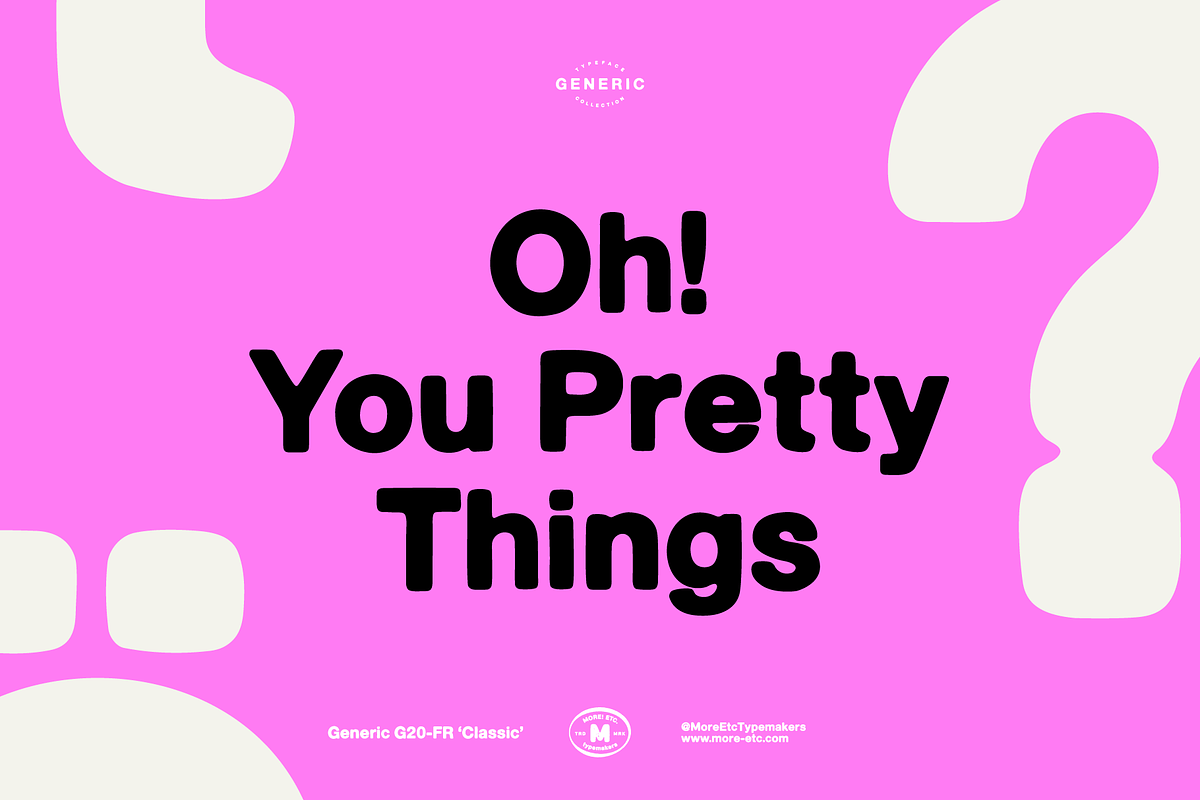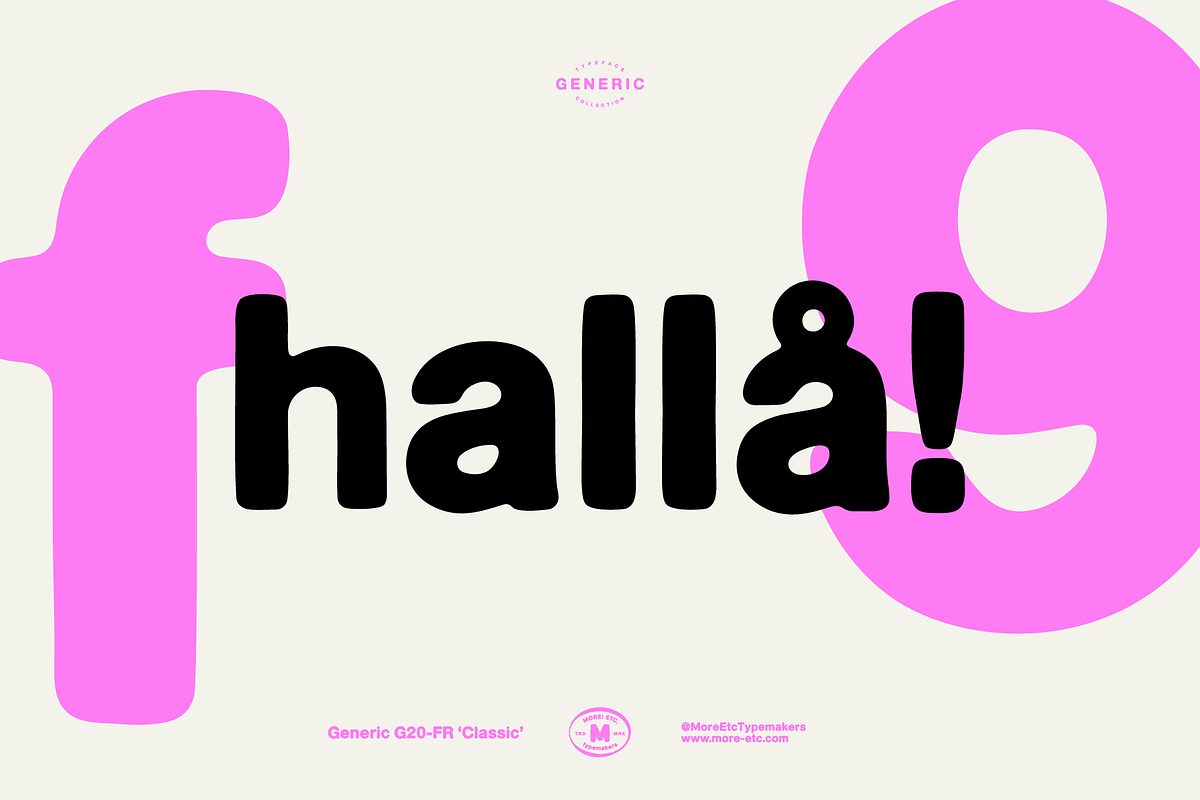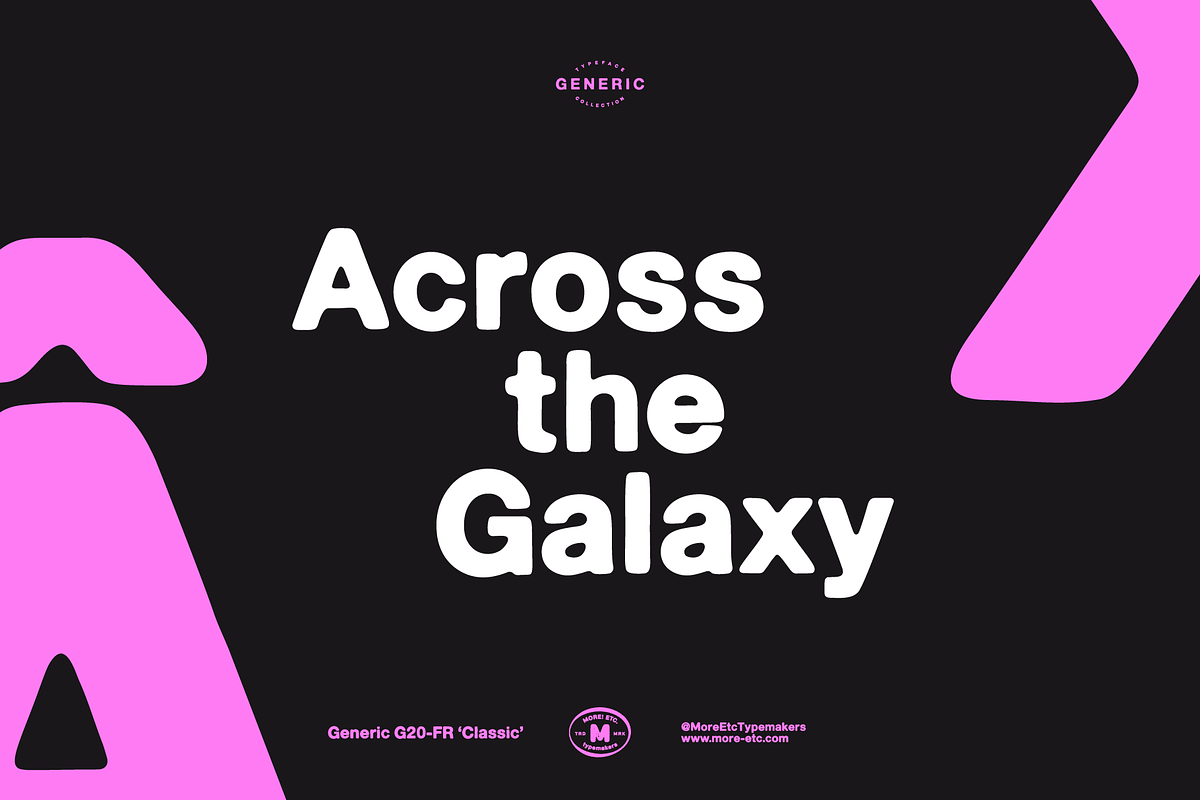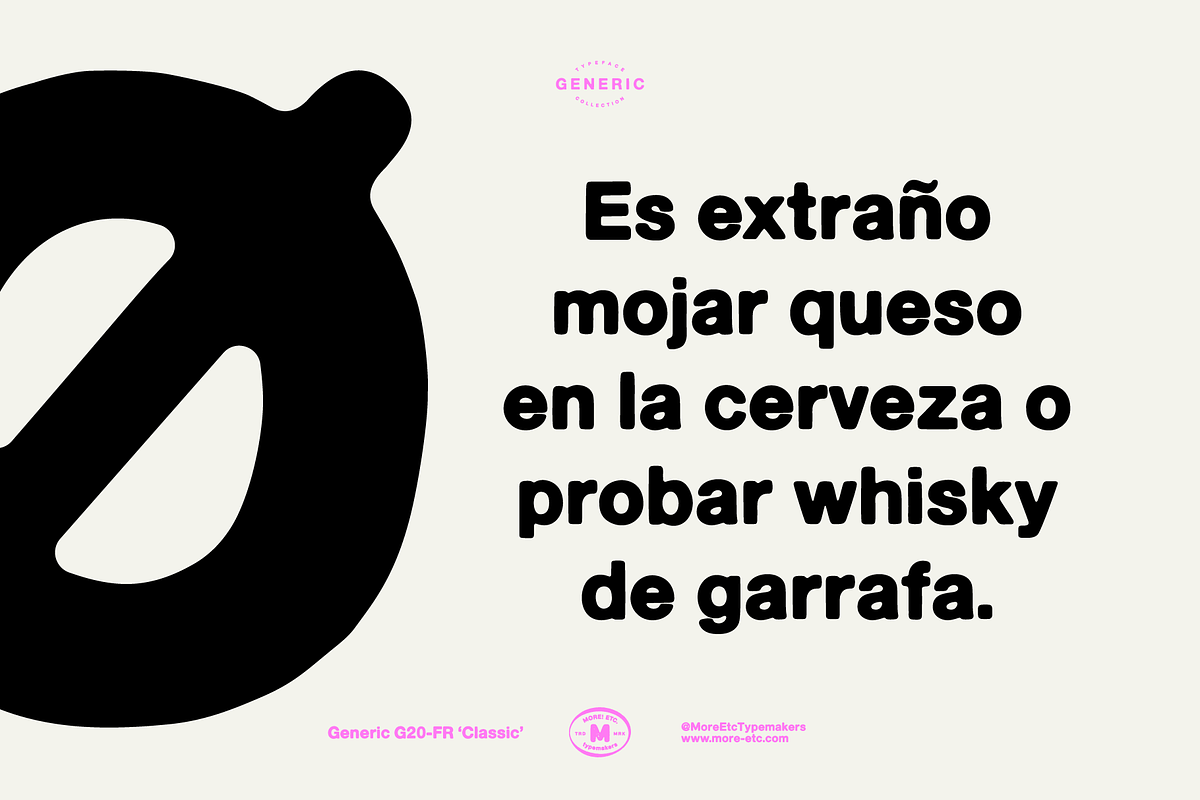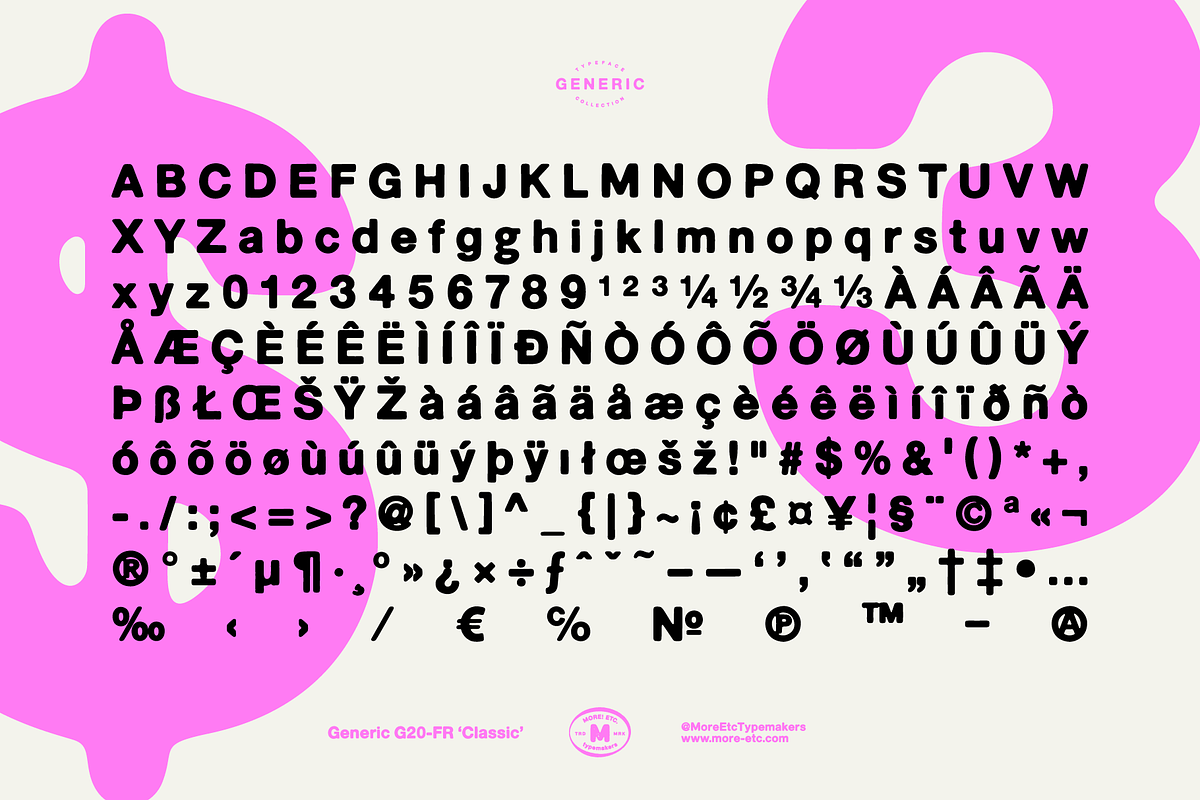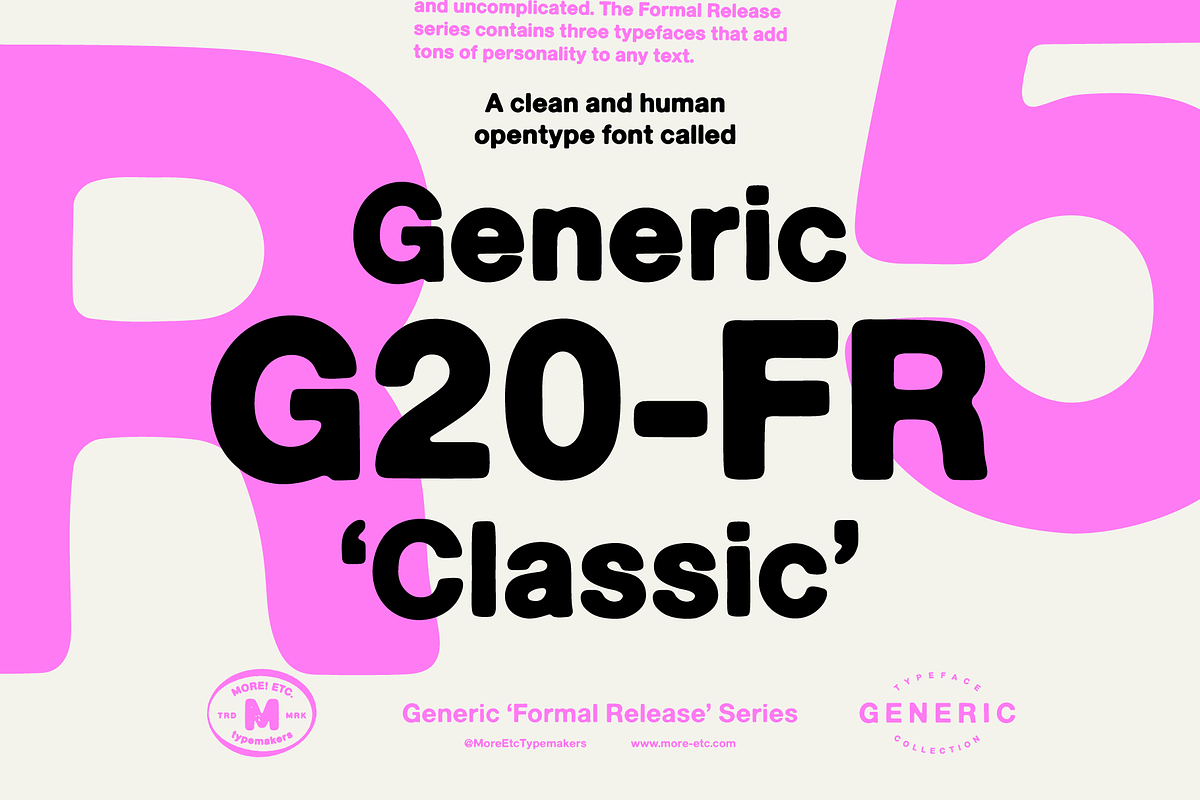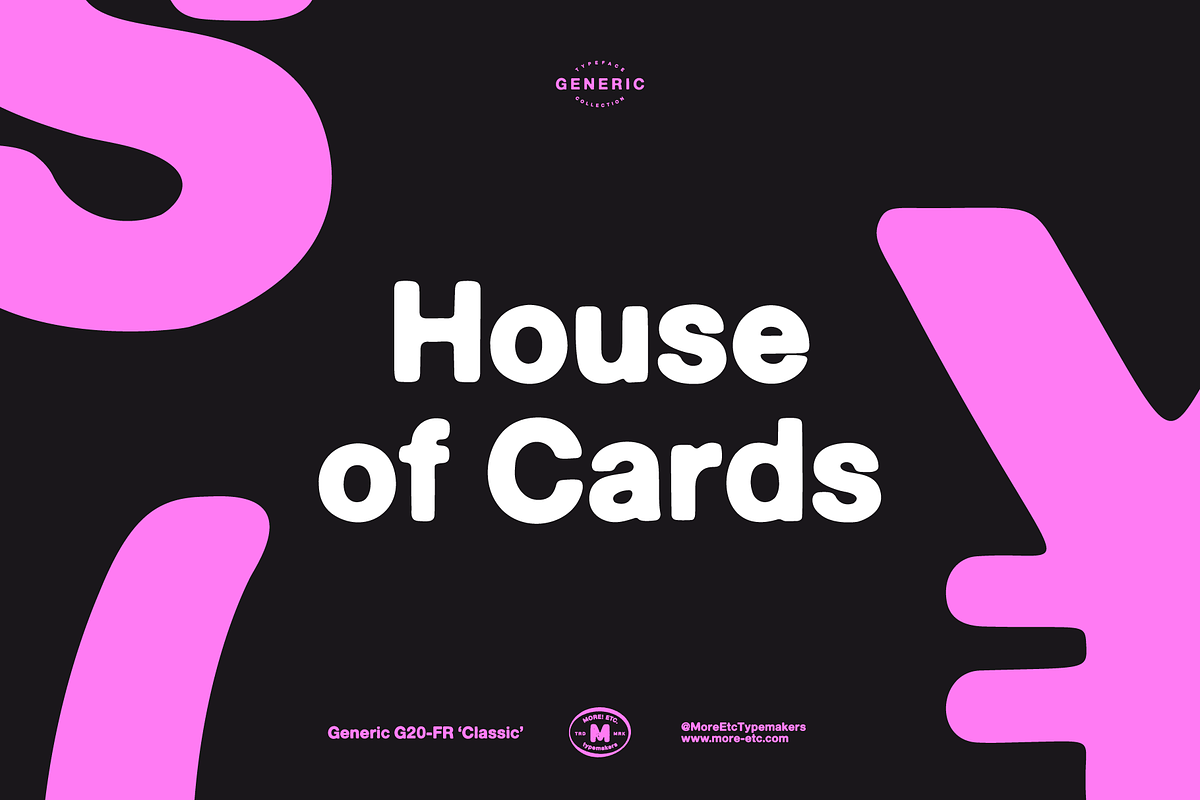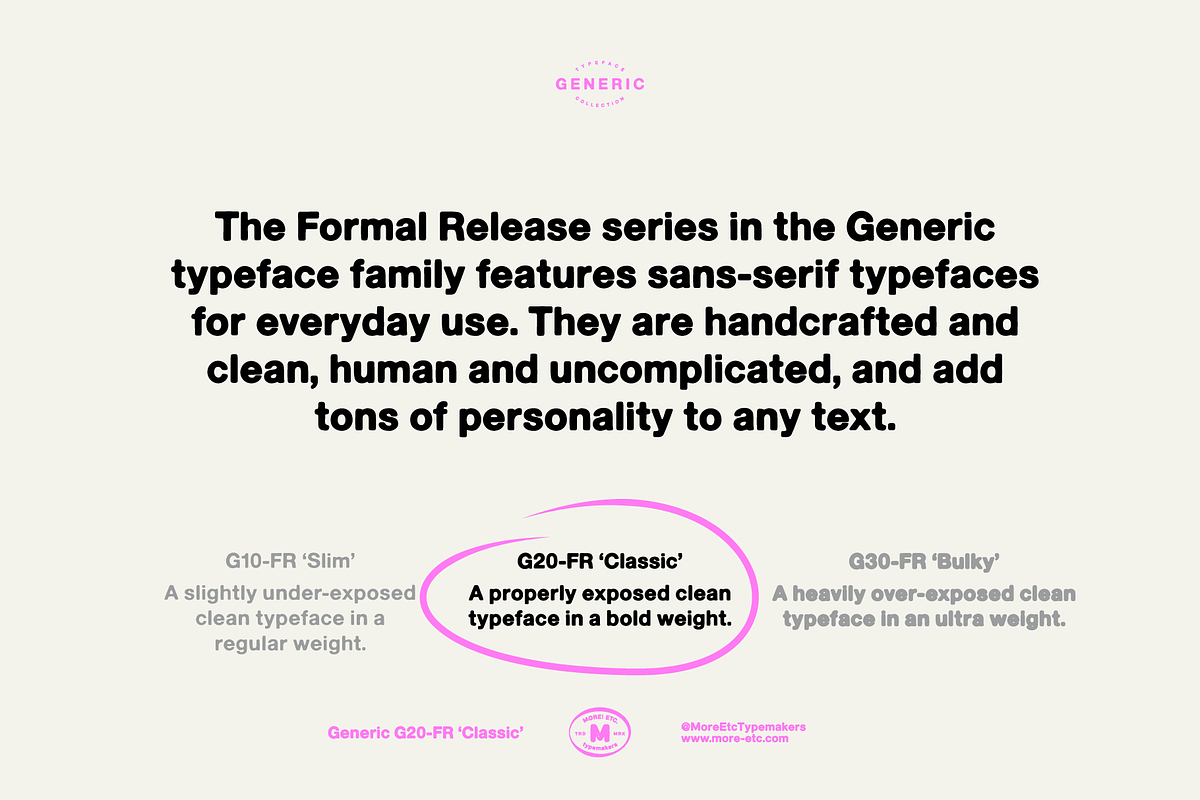
Generic G20-FR 'Classic'
Say hello to the Generic G20-FR 'Classic' typeface – a properly exposed clean typeface in a bold weight. A display font full of spirit, personality and distinction.
The typeface is handcrafted and clean, human and uncomplicated.
Font summary:
- Clean and human appeal with tons of personality
- Display font, but works in longer text settings as well
- 228 glyphs
- 1 alternate character
Companion shadow font
The Generic Typeface Collection is a series of sans-serif typefaces inspired by the craftsmanship of graphic design, typesetting, and printing in the analogue era – before Adobe, Macintosh computers and desktop publishing – when dinosaurs ruled the earth. This is an attempt to incorporate spirit and personality into a set of typefaces without losing distinction. You might call it a homage to non-perfection. I call it human.
The Generic Typeface Collection consists of 11 fonts divided into four series. The three standard series – the Formal Release series, the Coarse Copy series, and the Rough Display series – all contain three fonts each. The Extra Splendor series contains a couple of shadow fonts for that little extra sparkle.
OpenType features